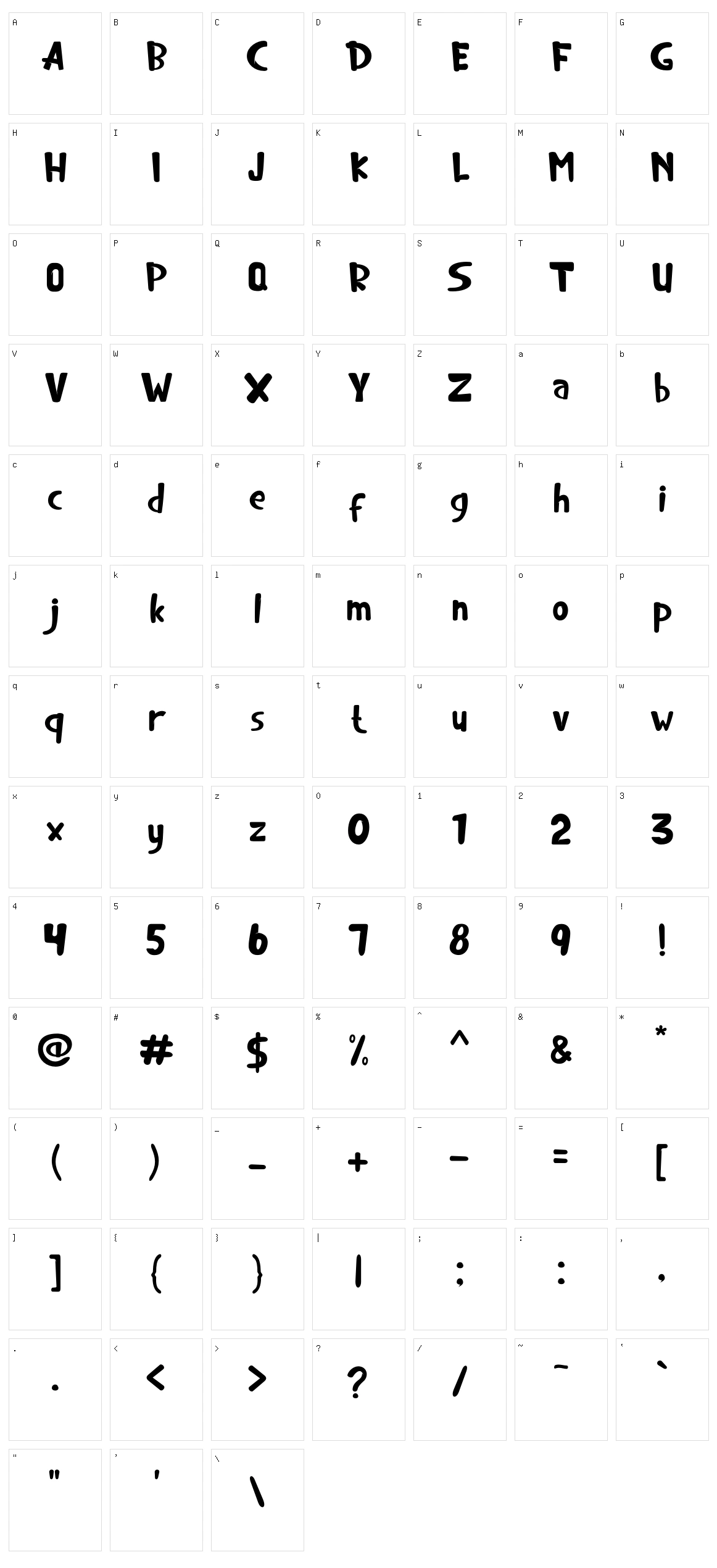
The free font Treno is love is carefully designed by Willetter Studio, showcasing a thoughtful balance of creativity and usability and falls under the Cartoon font style. When you download the ZIP file, it contains only 34.77 KB of font files, making it lightweight and quick to download. Please review the license details below to understand permitted usage and distribution rights. If license information is not available, we recommend using this font for personal projects only or contacting the author directly for commercial usage permissions.